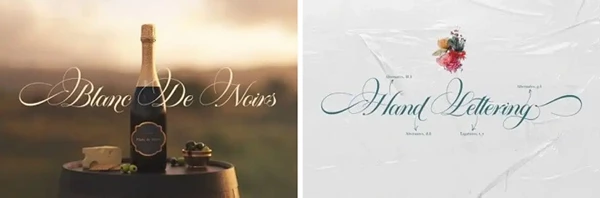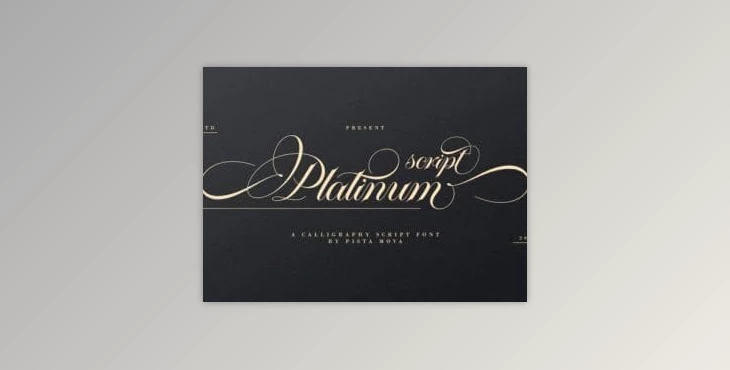
Platinum Script - Calligraphy Script Font embodies timeless elegance with a modern twist, offering versatility for a range of design projects.
With its graceful handcrafted style, it's ideal for wedding invitations, corporate branding, and more. Seamlessly merging classic sophistication with contemporary flair, this font promises to elevate your creativity effortlessly.
"Platinum Script - Calligraphy Script Font" Samples: